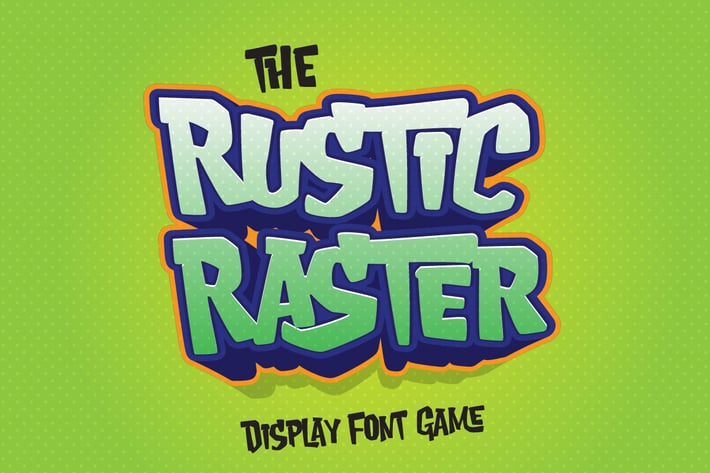
Rustic Raster - Playful Game Font
Rustic Raster - Playful Game Font, So beautiful on Logo game, branding materials, business cards, quotes, posters, and more!
Hundred of glyphs